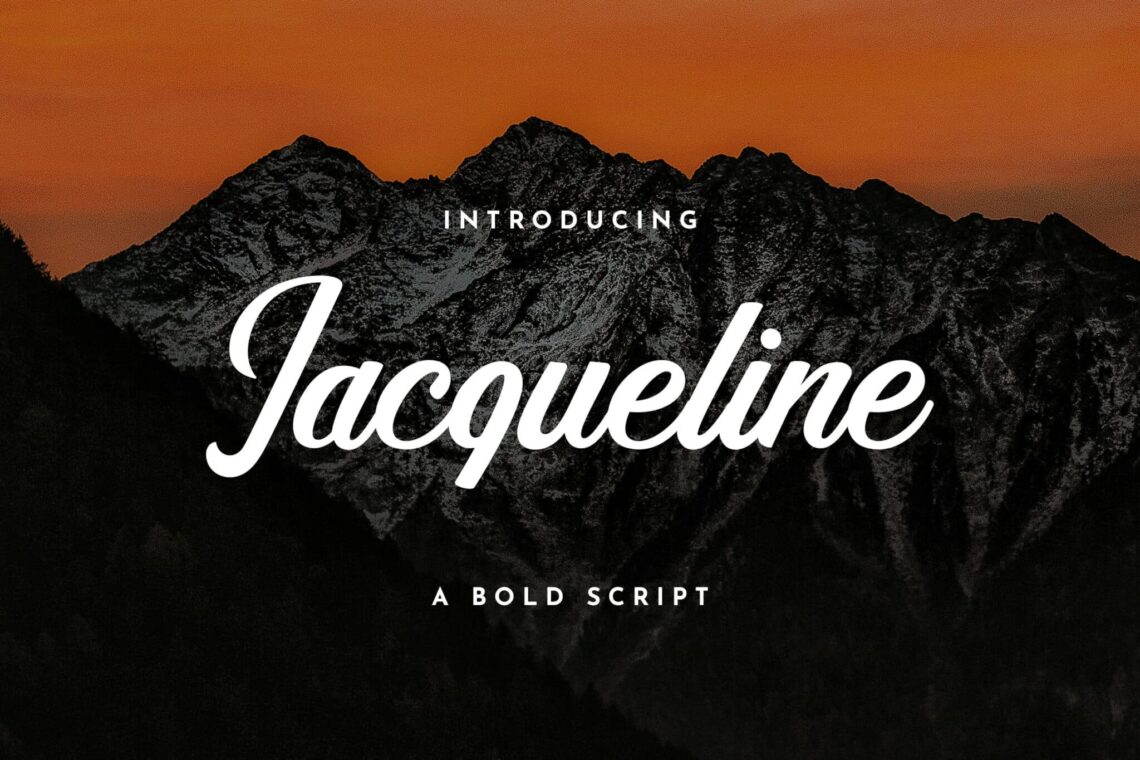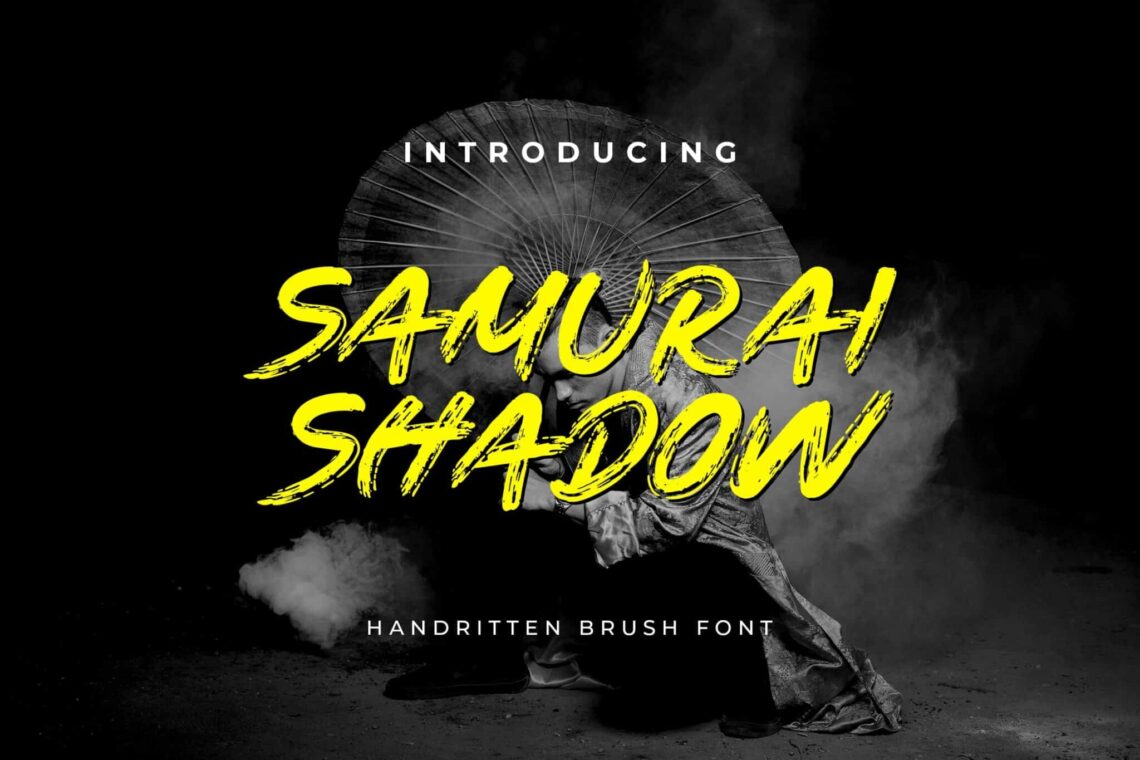
Titles and headings written in large, bold font (bold italic font, bold script font, bold italic font, bold letter font, bold font styles) stand out from a long distance. You’ll see them often in advertising mediums like posters, banners, and billboards. You’re lucky if you want to employ a similarly hefty font in your creations. Here are some of the greatest thick and bold font to utilize when making titles.
We have a wide variety of thick fonts in modern, vintage, retro, and handwritten styles, so you may choose the one that best suits your project. Be sure to check all the typefaces listed below and grab them all. Before that, let’s get to know what is the best reason to use bold font.
What is the best reason to use bold font?
Highlighting the visual hierarchy on a web page can be accomplished through bold font and thick typefaces. It is essential for websites that contain a large number of pages and detailed descriptions. In conclusion, using bold fonts as guides might be helpful whenever a website or document appears to have excessive information.
Do you intend to convey a statement using bold typography and large fonts, or are you just employing them because you find them more appealing?
Choose a strong, bold font if you are making a point with your response. If this is not the case, it goes without saying that you should give the strong typeface in your blogs or creatives some serious consideration before adopting it.
Best Thick and Bold Font
Here are UICreative collections of the best thick and bold font:
1. Head Capital Display
Head Capital Display Font
If you’re looking for a thick, bold font, go no further than this one. Its thick letter shape is perfect for creating eye-catching posters and flyers. The font is also ideal for urban and retro 1980s-style graphics. In addition, it is available in a rusted font.
2. Jaqueline Handwritten Font
Jaqueline Handwritten Font - bold italic font
Jaqueline Handwritten Font
This typeface is ideal for creating large and chunky titles for your print and digital designs, which will immediately capture the attention of anyone who sees them. It works exceptionally well for designing T-shirts and mugs to your specifications. The font includes capital and lowercase letters, each style in a colorful and whimsical manner. This is one of the best bold italic font.
3. Storystone Serif Font – Bold Font
Storystone Serif Font
It is not necessary to limit the use of fat and bold font styles in the production of titles; they also apply to the creation of logos. Storystone serves as a wonderful illustration of this point. It includes a thick yet elegant letter design that would go wonderfully with luxury and high-end brands’ logo designs. The typeface also includes many ligatures, variant characters, and glyphs in its standard distribution.
4. Bunch Bonarie – Bold Font
Bunch Bonarie
By looking at this typeface, you may get an idea of how fantastic it will appear when applied to the design of a food box, a billboard advertising an event geared toward children, or even a brochure advertising a food product. This typeface is available in various forms, including normal and outlined versions, for your convenience.
5. Samurai Shadow
Samurai Shadow Brush Handwritten Font
6. Food Delight Script and Handwritten Font
Food Delight Script and Handwritten Font
Design-wise, this inventive, bold script font owes a debt to brush lettering and old-school sign painting. T-shirts, signs, mugs, and other merchandise can all benefit from using this versatile typeface. Everybody can use it for nothing, whether for profit or not.
7. Heatwalk Script – Bold Font
Heatwalk Script Handwritten Font - bold font styles
Heatwalk Script Handwritten Font
This is a fascinating vintage-inspired bold font with a rounded, contemporary aesthetic. It works great for making labels, cards, posters, and other visual communication.
8. Beach Front Script Handwritten Font
Beach Front Script Handwritten Font - Bold Font
fonts beach front modern script
You can make hand lettering in an instant with the help of Beach Front, which also provides a very useful set of additional swash for you to use. It works particularly well for logos, handwritten quotes, product packaging, headers, posters, products, social media, and greeting cards.
9. Black Fold Script Handwritten Font
Black Fold Script Handwritten Font
This is a script typeface, bold letter font, that is neat, contemporary, and bold. It has a vintage appearance and is brimming with allure. It includes both uppercase and lowercase letters in addition to numbers. The Black Fold typeface is excellent for use in various tasks, such as designing business cards, typography, graphic design, posters, brochures, wedding invitations, site headers, and logos, amongst others.